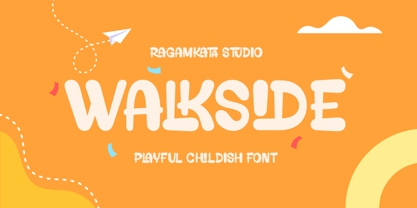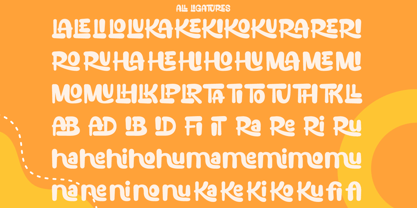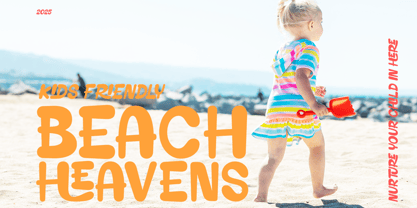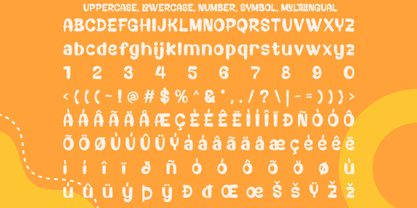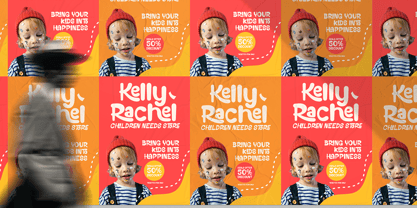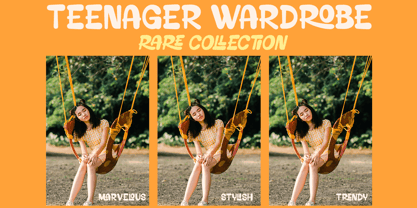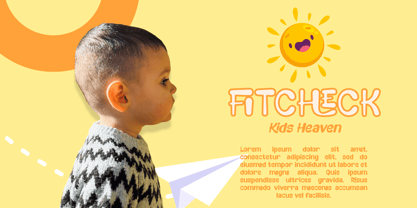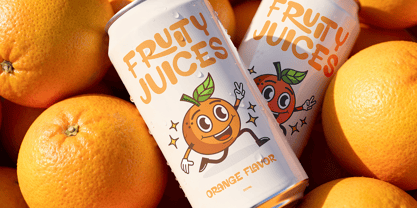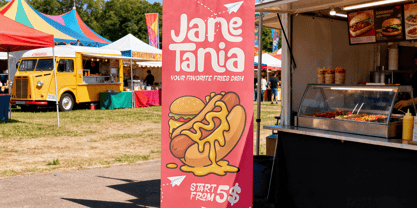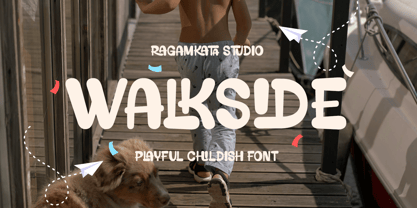
Walkside
von RagamKata
Die Schriftfamilie Walkside wurde von Yogiswhara Dio Prakoso Riadi entworfen und von RagamKata veröffentlicht. Walkside enthält 2 Stile und Familienpaketoptionen. Mehr über diese Familie
Bring a burst of joy and imagination to your creative projects with Walkside, a fun, bouncy, and delightfully whimsical display font. Designed to capture the carefree energy of childhood, Walkside features soft rounded edges, chunky letterforms, and a friendly hand-drawn feel that instantly adds warmth and personality. Perfect for kids’ branding, storybooks, posters, birthday invitations, product packaging, school projects, and any design that needs a splash of playfulness, Walkside is both charming and easy to read. Its organic shapes and lively rhythm make every word feel inviting and full of character. Whats Included : - Walkside Regular - Walkside Italic - Stylish Ligatures - Number and Symbol - Multilingual Support Thanks, Have a wonderful Day Ragamkata Studio